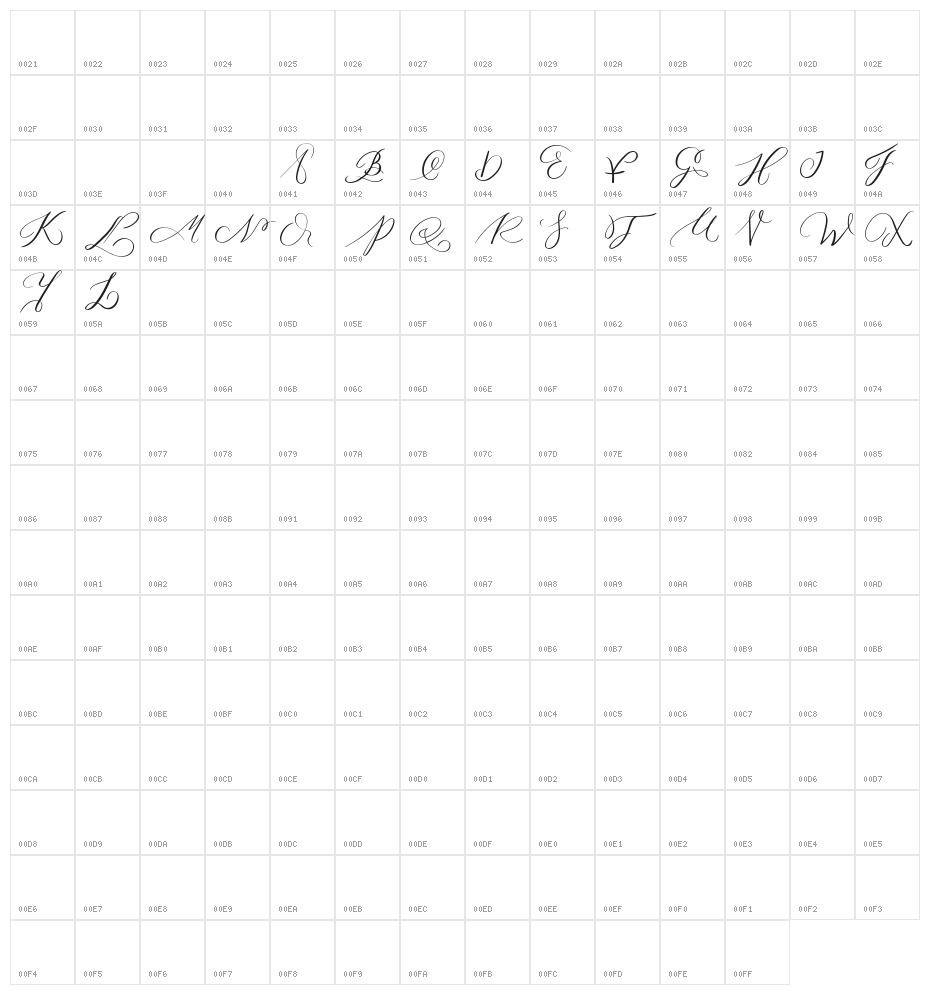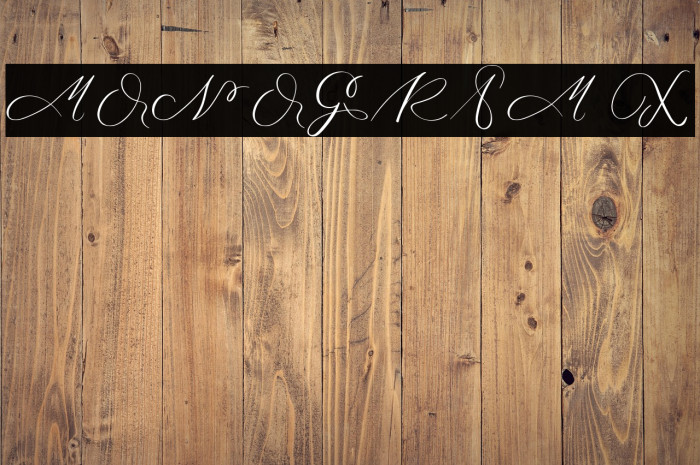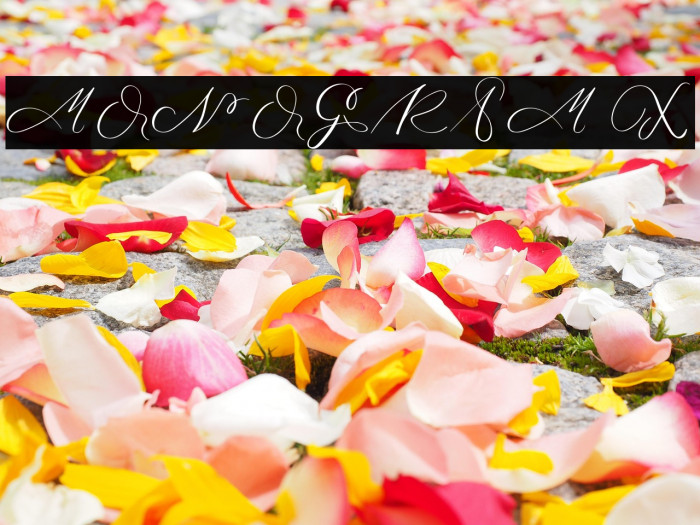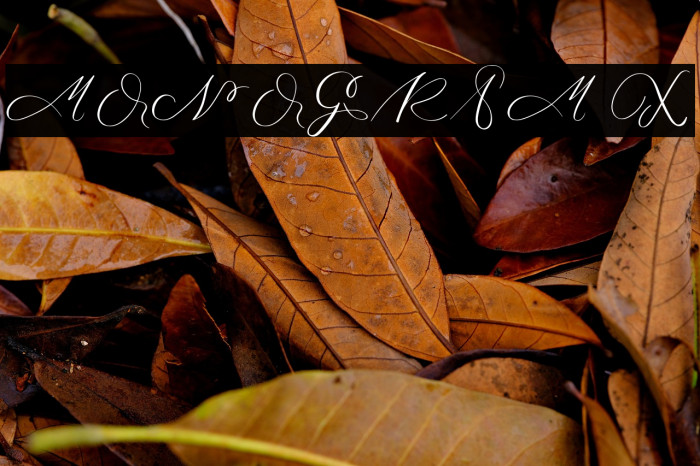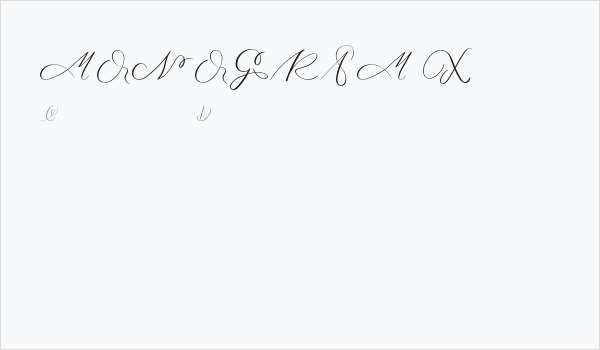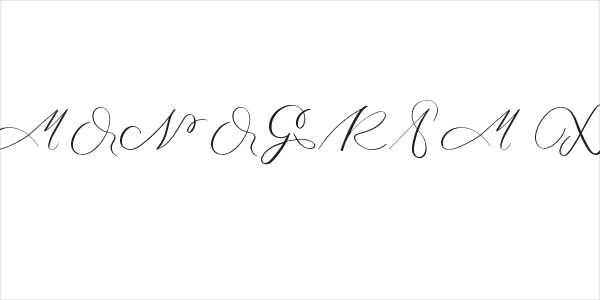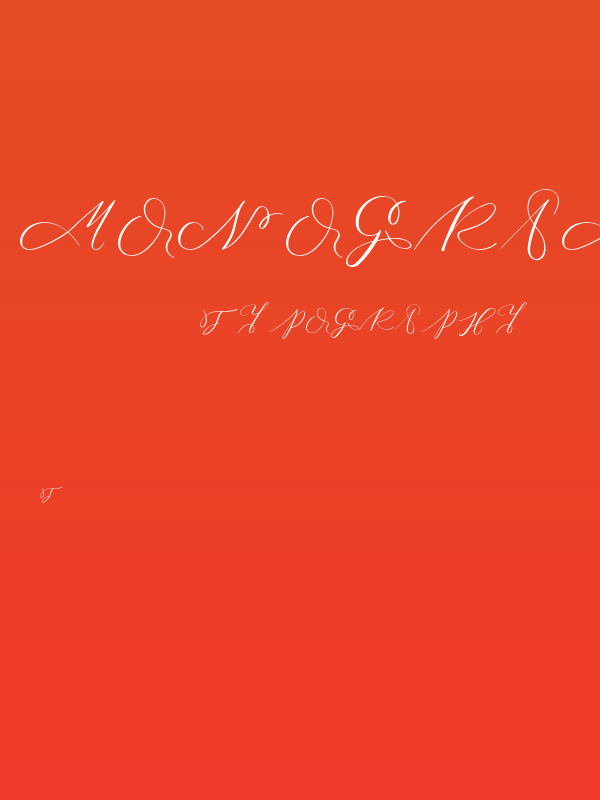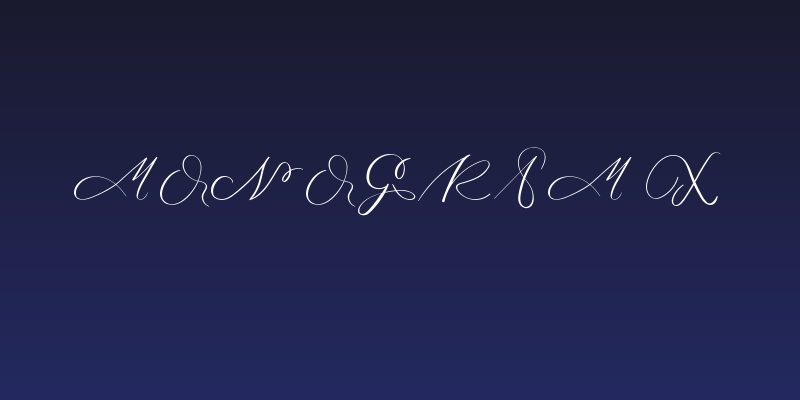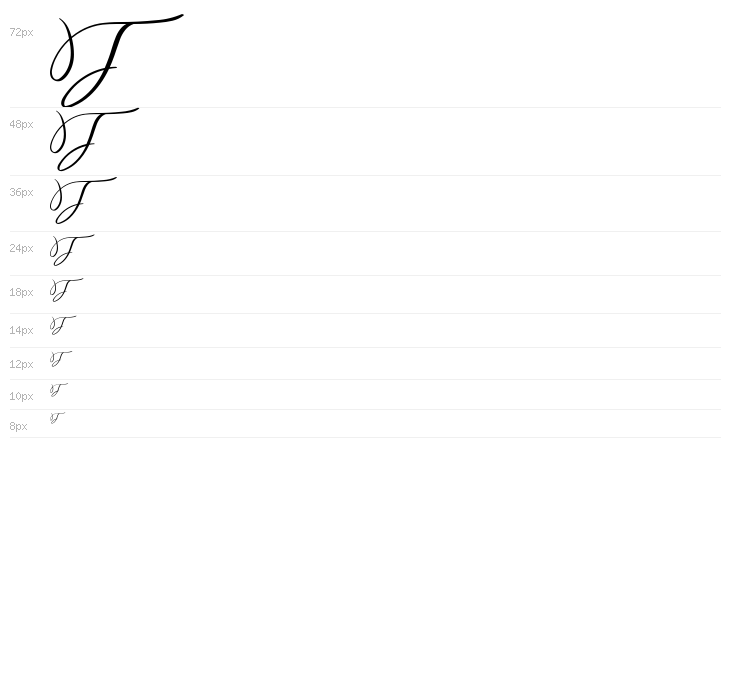
MONOGRAM X Font
MONOGRAM X Description
This font exudes elegance and sophistication with its intricate and flowing script style. Each letter is adorned with delicate swirls and flourishes, creating a sense of movement and grace. The characters are highly decorative, making them ideal for formal and luxurious designs. The uppercase letters are particularly elaborate, with extended strokes and loops that enhance their visual appeal. This font is perfect for projects that require a touch of class and refinement, such as wedding invitations, high-end branding, or decorative monograms.
| Use Case | Logos, Invitations, Decorative text |
| Proposed Projects | Ideal for wedding invitations, luxury branding, decorative monograms, and formal event materials. |